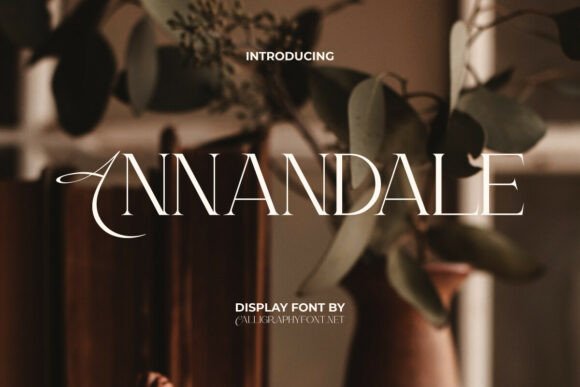
The Annandale Font: A Designer’s New Best Friend
I’ll never forget the time I was working on a project for a high-end fashion brand, and I just couldn’t find the right font to match their sleek and sophisticated vibe. The client was specific: they wanted something elegant, yet modern; classy, yet attention-grabbing. I spent hours scouring font websites and trying out different combinations, but nothing seemed quite right. That’s when I stumbled upon the Annandale Font. ✨
It was love at first sight! The Annandale Font’s sleek lines, elegant serifs, and charming twists perfectly captured the essence of the brand. I knew right then and there that I had found the perfect fit. In this article, I’ll share my experience with the Annandale Font, its features, and how to make the most of it in your designs.
- ✅ Sleek and elegant design: The Annandale Font has a sophisticated look that’s perfect for high-end brands and luxury products.
- ✅ Versatility: This font works beautifully for a wide range of projects, from blogs and book titles to business cards and movie titles.
- ✅ Charming twists: The font’s unique details add a touch of personality to any design.
- ✅ Complete set of Uppercase and Lowercase Basic Characters: The font comes with a full set of characters, making it easy to use for any project.
While the Annandale Font is an excellent choice for many projects, there are a few things to keep in mind: ⚠️
- 🤔 Limited use for body text: While the font is beautiful, it’s primarily designed for display purposes. It may not be the best choice for long blocks of body text.
- 🤔 May require adjustments for certain languages: As with any font, you may need to make adjustments for certain languages or special characters.
The Story Behind Annandale Font
The Annandale Font was designed with the goal of creating a sleek and elegant serif display font that would meet the needs of designers and crafters. The designer aimed to create a font that would be both modern and classic, with a unique twist. 💡
The font’s name, Annandale, is inspired by the charming and sophisticated feel of the Scottish Borders. The designer’s inspiration came from the beautiful landscapes and historic architecture of the region. 🏰
Q: What is the Annandale Font best used for?
A: The Annandale Font is best used for display purposes, such as titles, headings, and labels. It’s perfect for luxury brands, fashion designs, and high-end products.
Q: Can I use the Annandale Font for body text?
A: While the Annandale Font is beautiful, it’s primarily designed for display purposes. It may not be the best choice for long blocks of body text.
Q: Is the Annandale Font suitable for digital use?
A: Yes, the Annandale Font is suitable for digital use. It’s a high-quality font that will look great on any device.